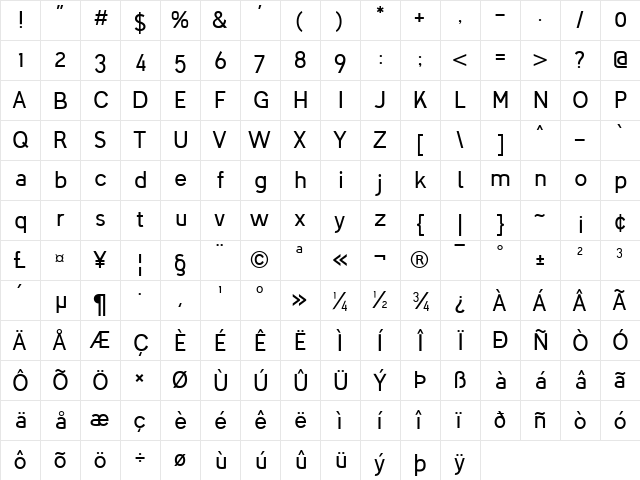
Fonce Sans Regular
| Foundry | Ryan Ford |
| Designer | Ryan Ford |
Design Context for Fonce Sans Typeface
Fonce Sans takes a measured approach to typography — its balanced proportions and neutral character make it a reliable workhorse for both digital and print work.